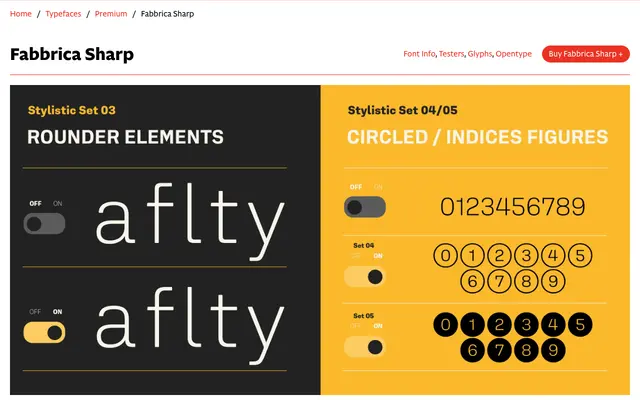
Fabbrica Sharp
CAST · Michele Patanè · 2019
A geometric sans with deliberately sharp corners, designed by Michele Patanè for branding, publishing and technical applications across eight weights.
Fabbrica Sharp is the hard-edged variant of Patanè's Fabbrica family, where squared curves and sharp corners resist the natural optical rounding that occurs at small sizes or on low-resolution devices. Eight weights from Thin to ExtraBold each carry an italic, and an extensive set of OpenType features includes constructed style, streamlined uppercase, circled figures, tailless l and open c variants. The sharp construction lends a direct, industrial character suited to headlines and display settings as much as to functional body copy.
Squared curves, technical-geometric letterforms and even proportions place this firmly in the geometric sans genre; the sharp-cornered construction distinguishes it from its rounded sibling Fabbrica.